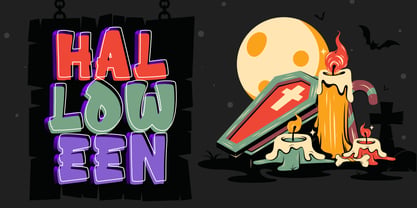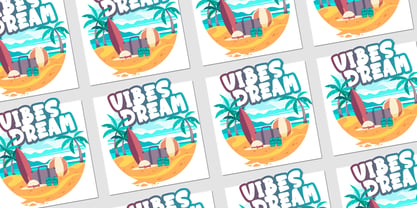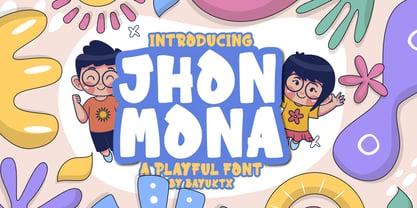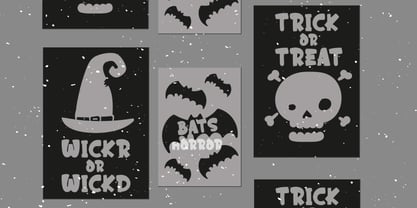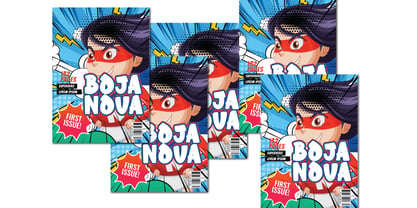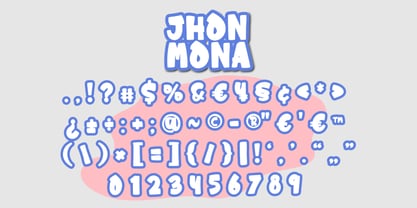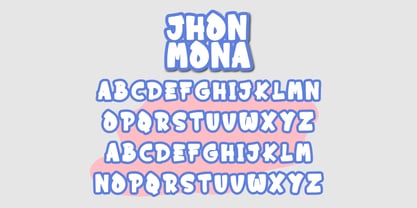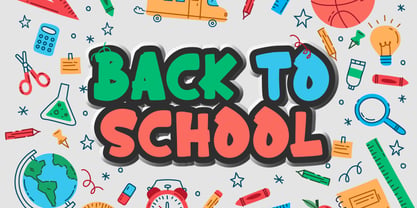
Jhon Mona
Jhon Mona – Playful Display Font
Jhon Mona Playful Display Font is a fun and cheerful typeface inspired by doodle-style illustrations, kids-friendly visuals, and imaginative creativity. Featuring bold shapes, rounded edges, and lively character forms, this font brings a joyful and energetic personality to any design.
Designed to capture the spirit of happiness and playfulness, Jhon Mona blends cartoon-inspired lettering with a clean and modern structure. Each letter is crafted with unique and quirky details, creating a friendly and approachable look that feels both expressive and engaging.
With its bright and versatile style, Jhon Mona is perfect for creative projects that aim to be fun, colorful, and eye-catching. It adds a charming and lighthearted touch that works beautifully across playful and youthful design concepts.
Key Features :
* Uppercase & Lowercase Characters
* Numerals & Punctuation
* Multilingual Support
* PUA Encoded & OpenType Features
* Fun & Playful Display Style
* Bold & Rounded Letterforms
* Cute & Friendly Appearance
Suitable For :
* Branding & Logo Design
* Kids & Children Projects
* Social Media Graphics
* Posters & Flyers
* Cartoon & Illustration Design
* Packaging & Labels
* Fun & Creative Projects
With Jhon Mona a Playful Display Font, your designs will feel more lively, colorful, and full of personality—perfect for projects that want to stand out with a fun and cheerful visual style.